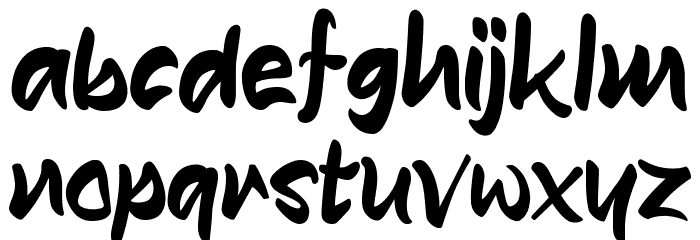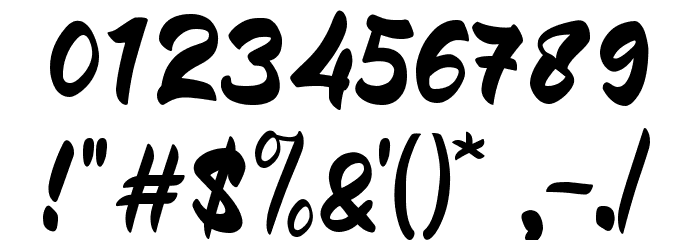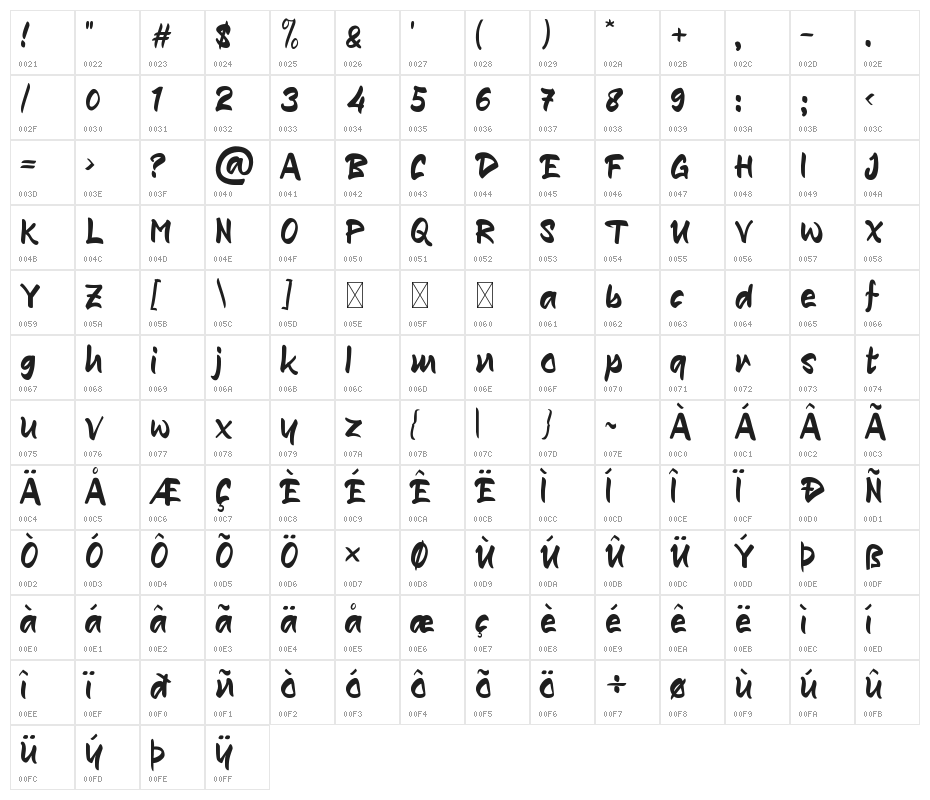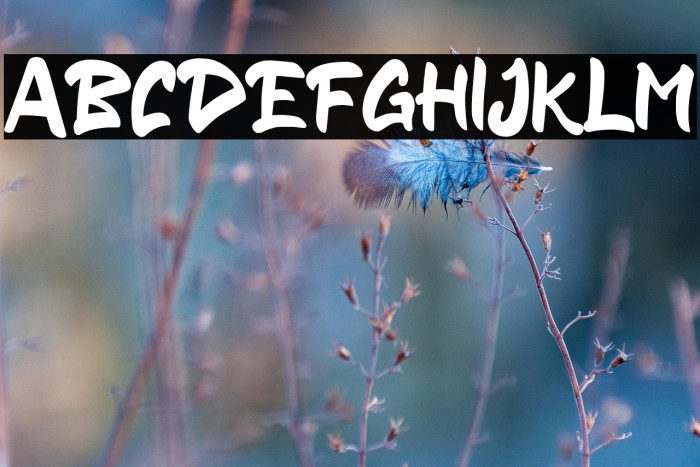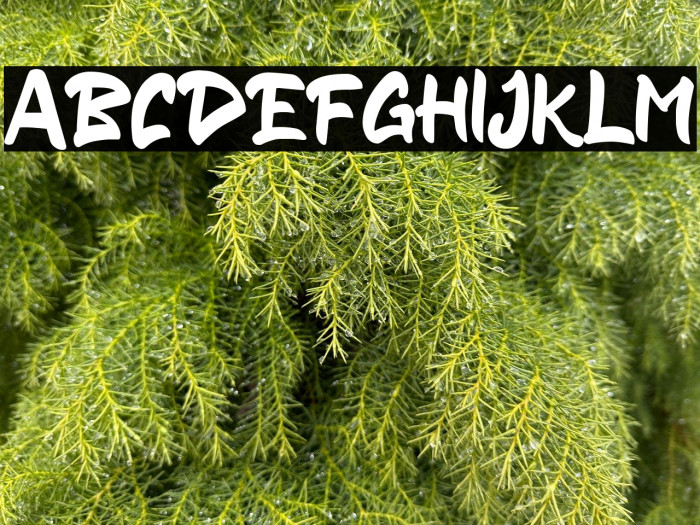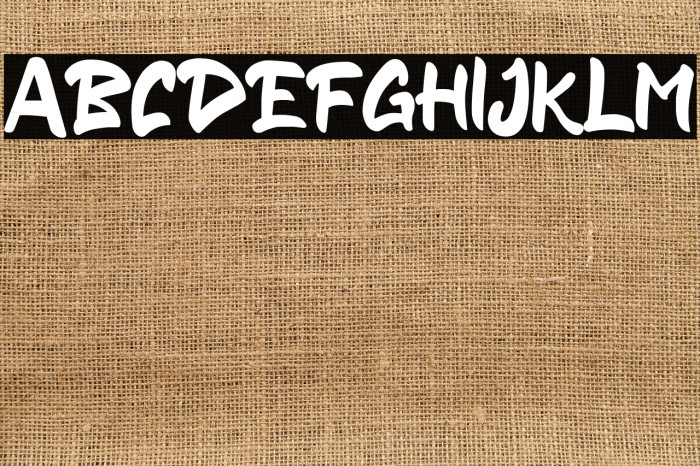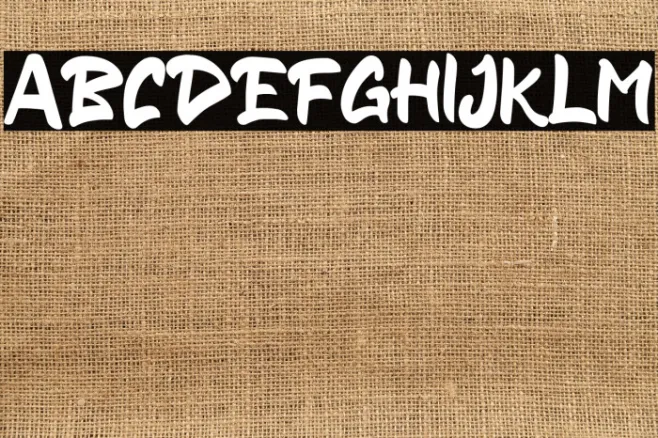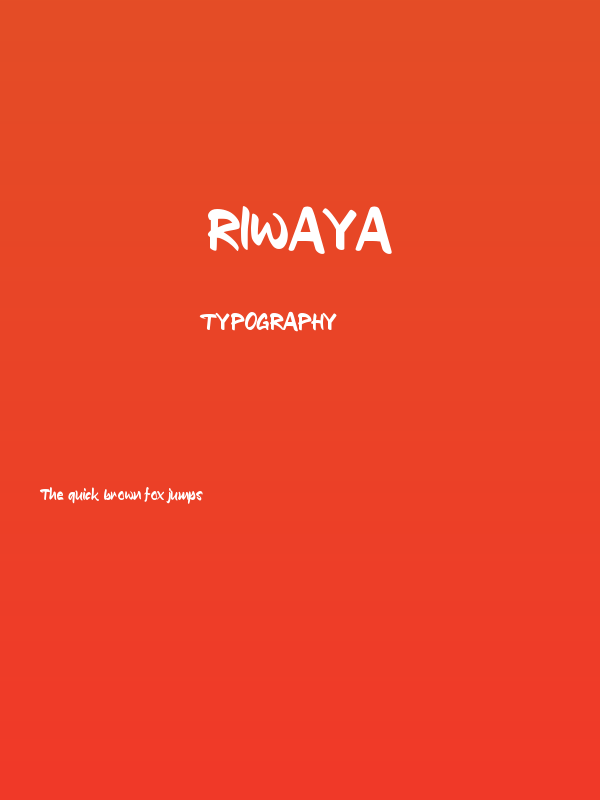
Riwaya Font
This font features a bold, handwritten style with a playful and energetic vibe. The letters are rounded and slightly irregular, giving it a casual and informal appearance. The uppercase and lowercase characters maintain a consistent flow, while the numbers and special characters complement the overall design. The strokes are thick, contributing to a strong visual presence, making it suitable for attention-grabbing designs. Its dynamic and lively nature makes it ideal for creative projects that require a personal touch.
A bold, playful handwritten font with a casual and energetic style.
- Font: Riwaya
- Proposed Projects: Ideal for greeting cards, posters, social media graphics, and branding projects that require a personal and lively touch.
- Category: Handwritten